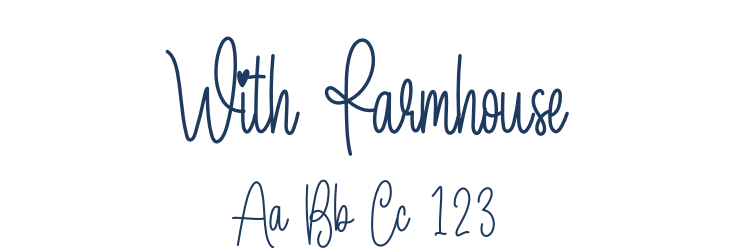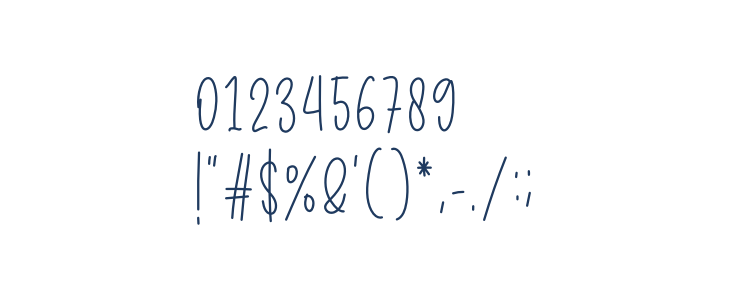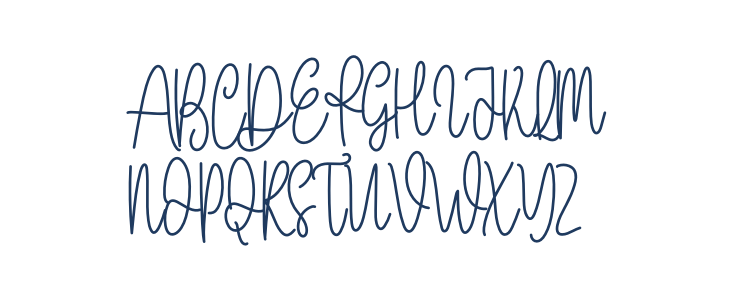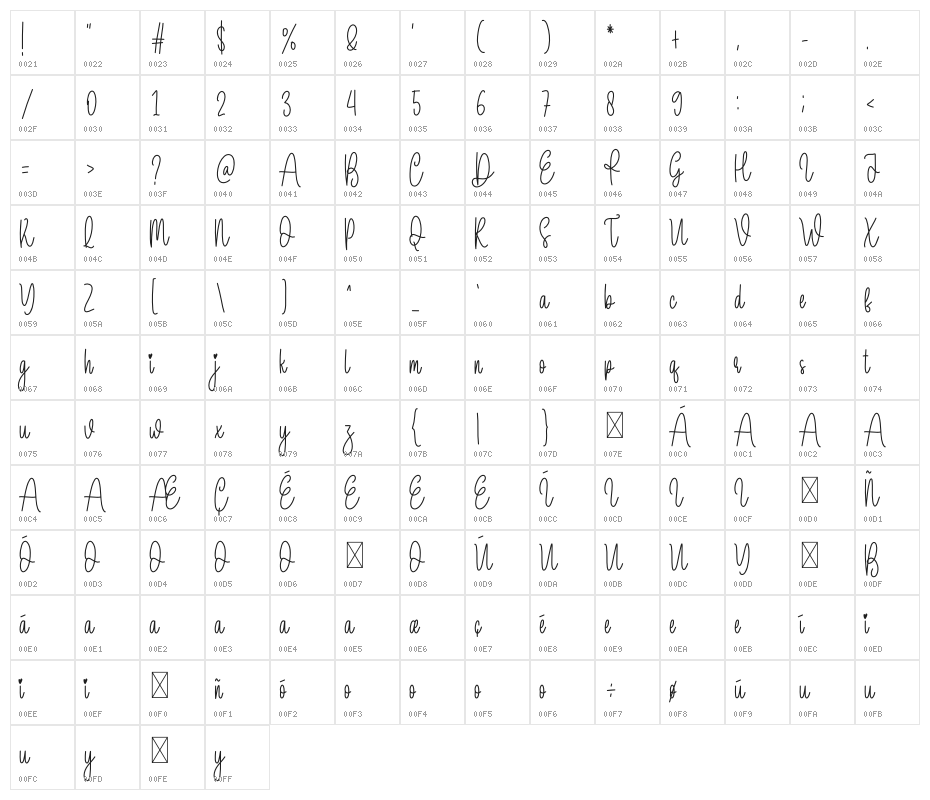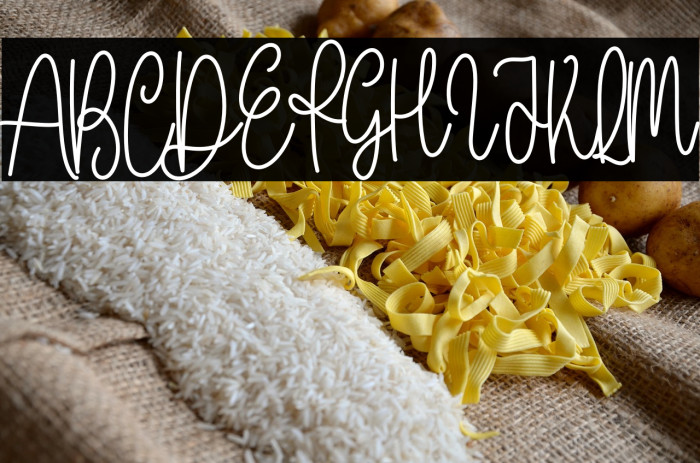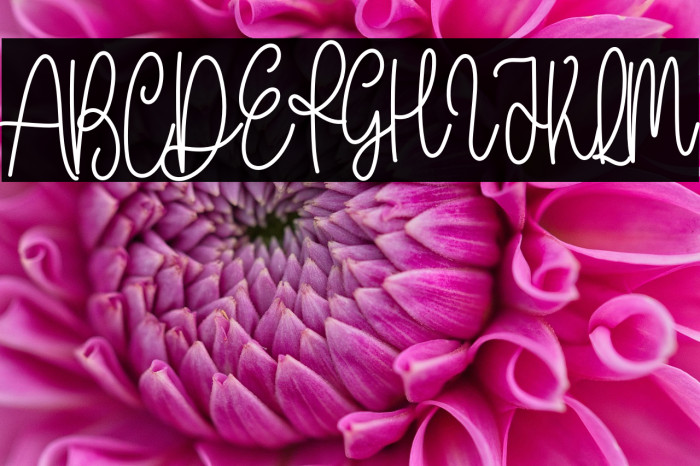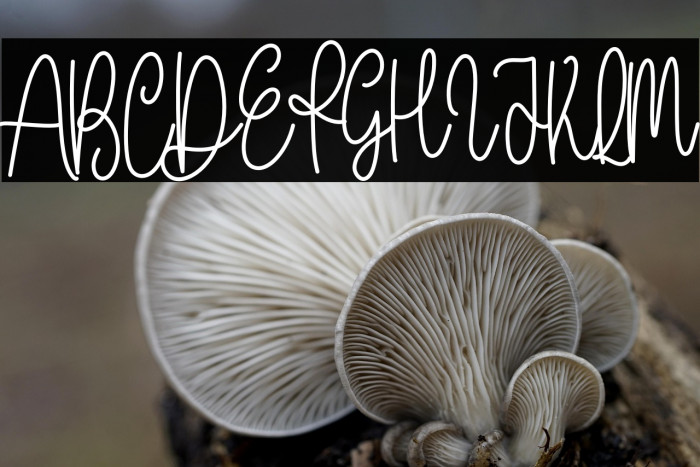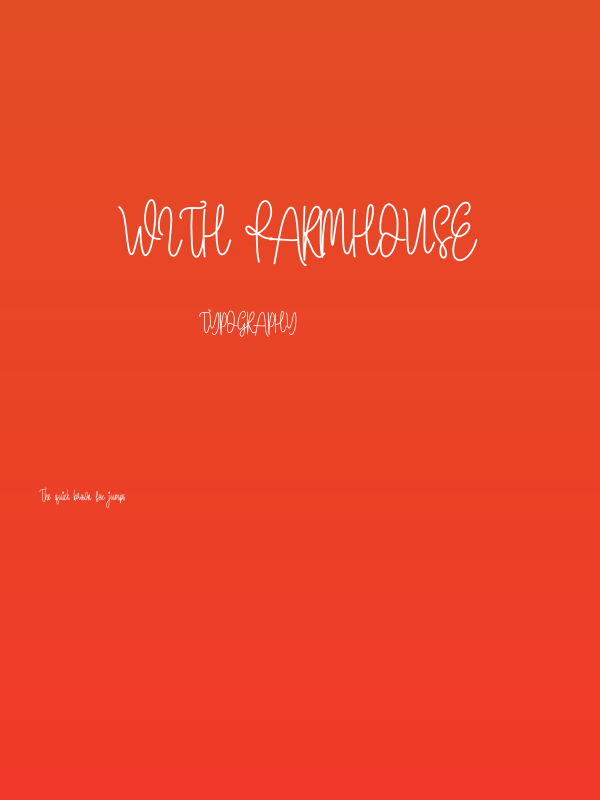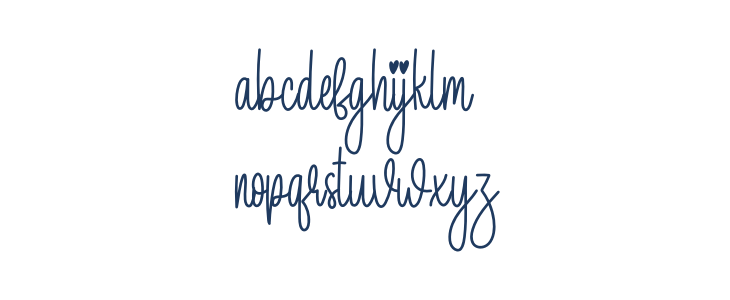
With Farmhouse Font
With Farmhouse Description
A playful, handwritten script font with tall, narrow letterforms and loose, flowing strokes. The characters feature a casual, whimsical style with high ascenders and descenders, and a consistent thin line weight throughout.
| Width | Condensed |
| Overall Style | Decorative, Playful, Whimsical |
| Use Case | Logos, Headlines, Decorative text, Social media graphics |
| Proposed Projects | Greeting cards, farmhouse decor, invitations, quotes, branding for creative businesses. |